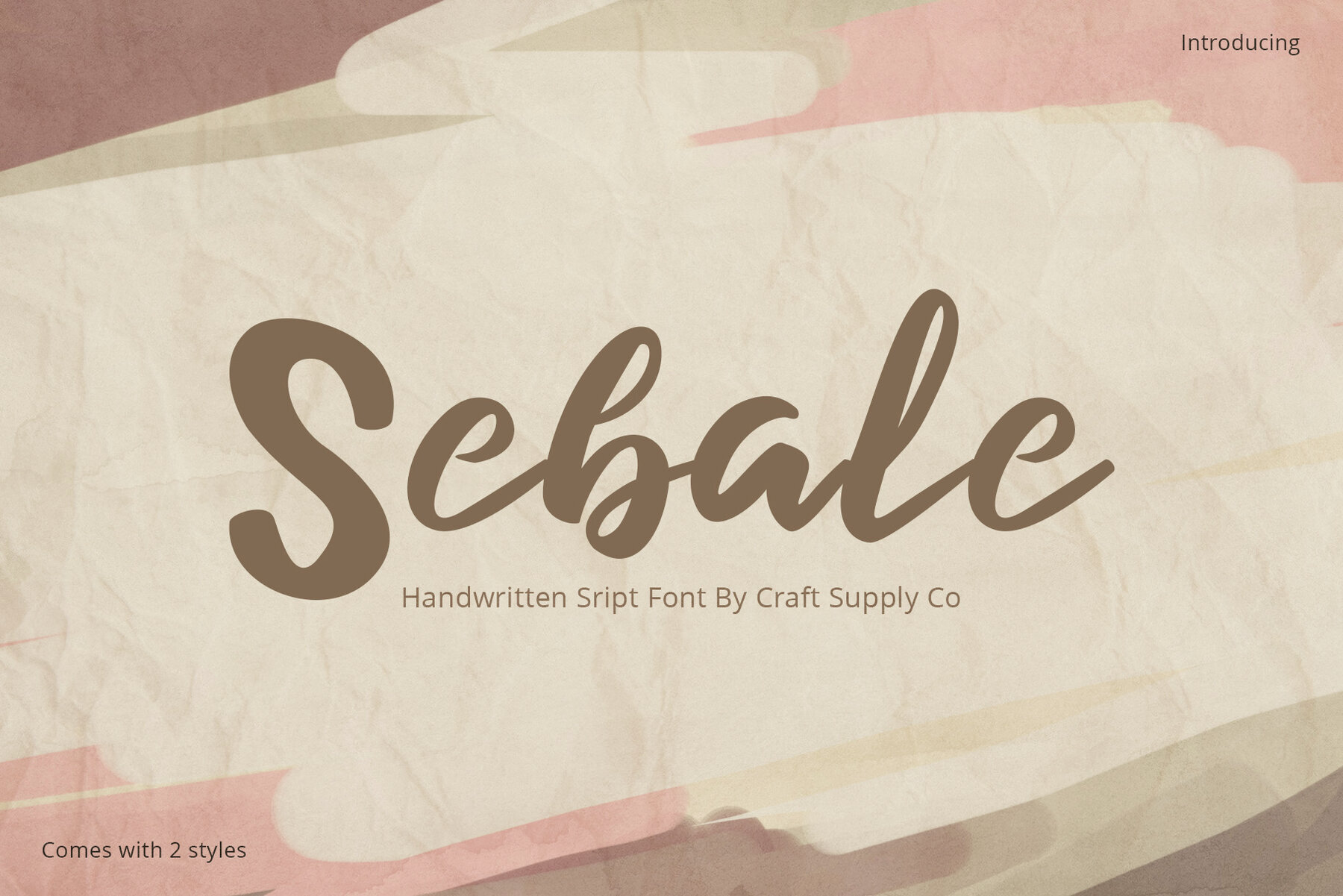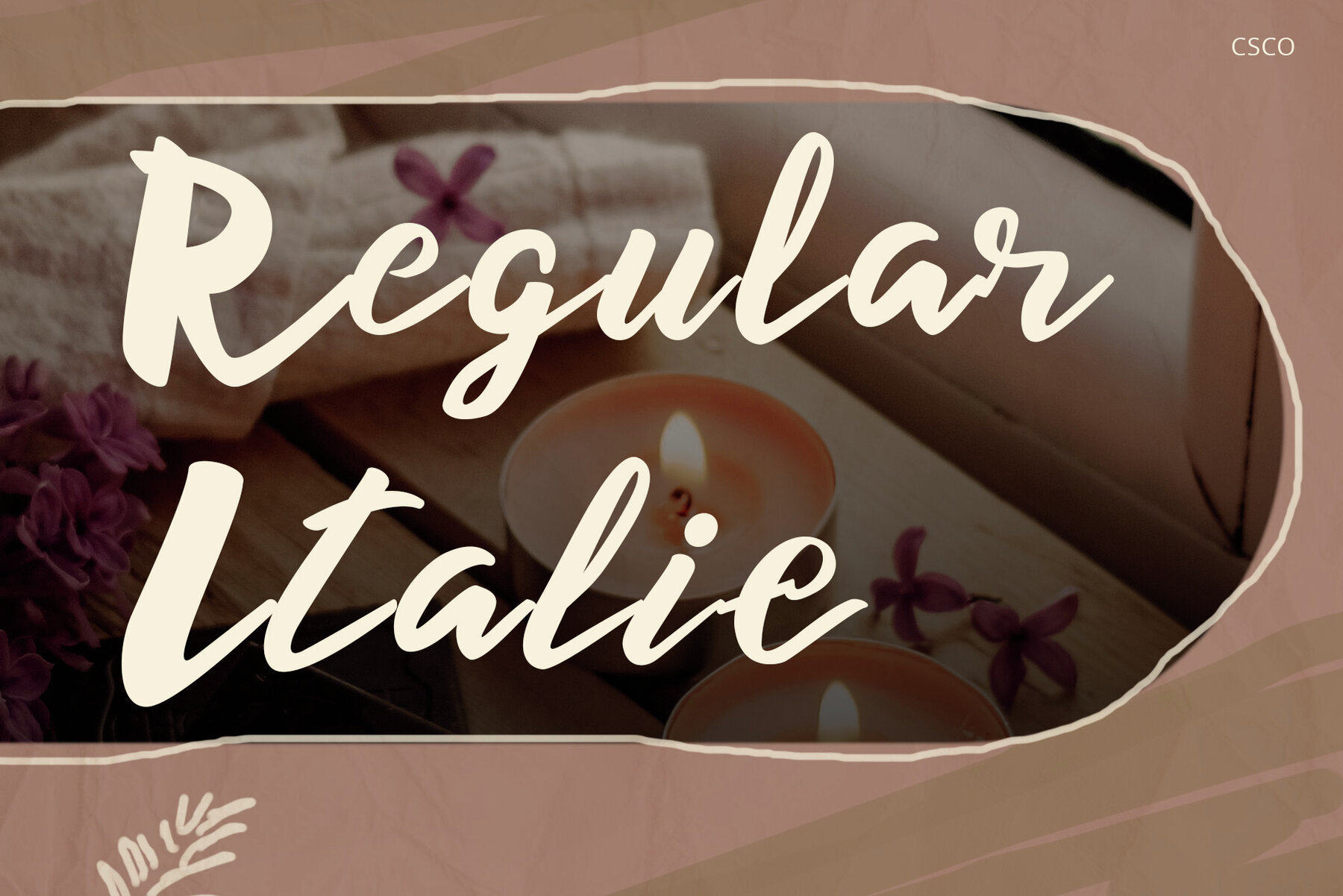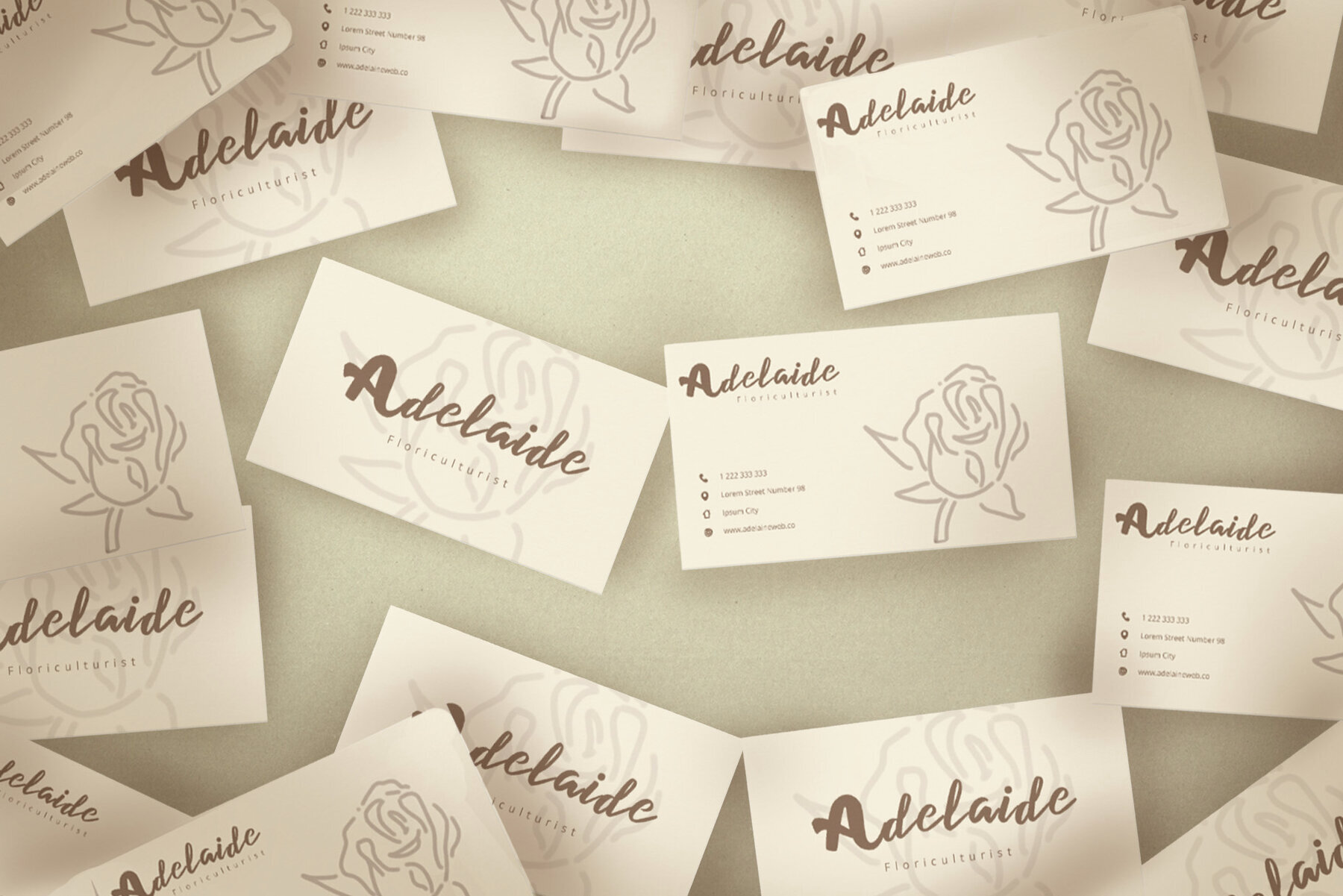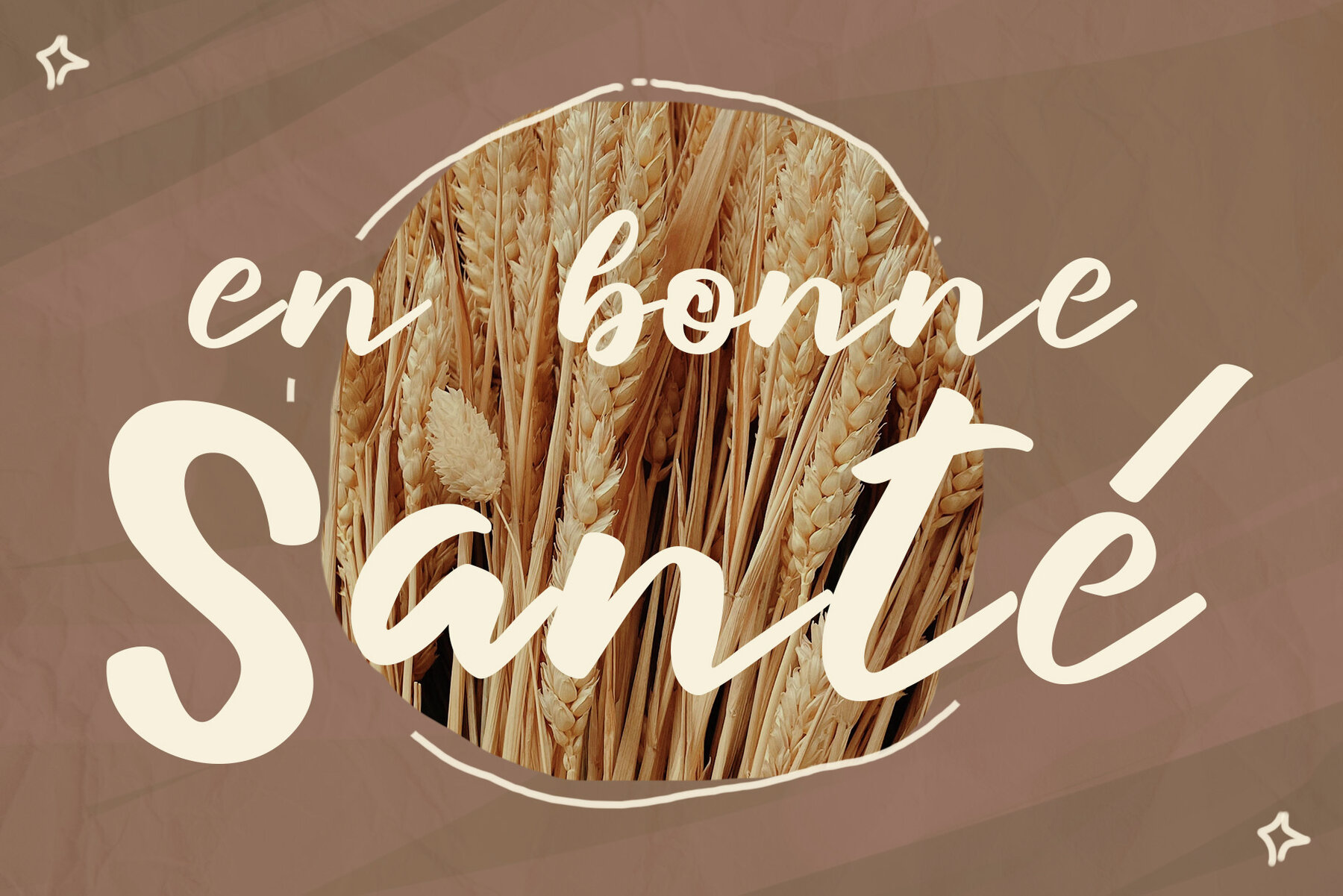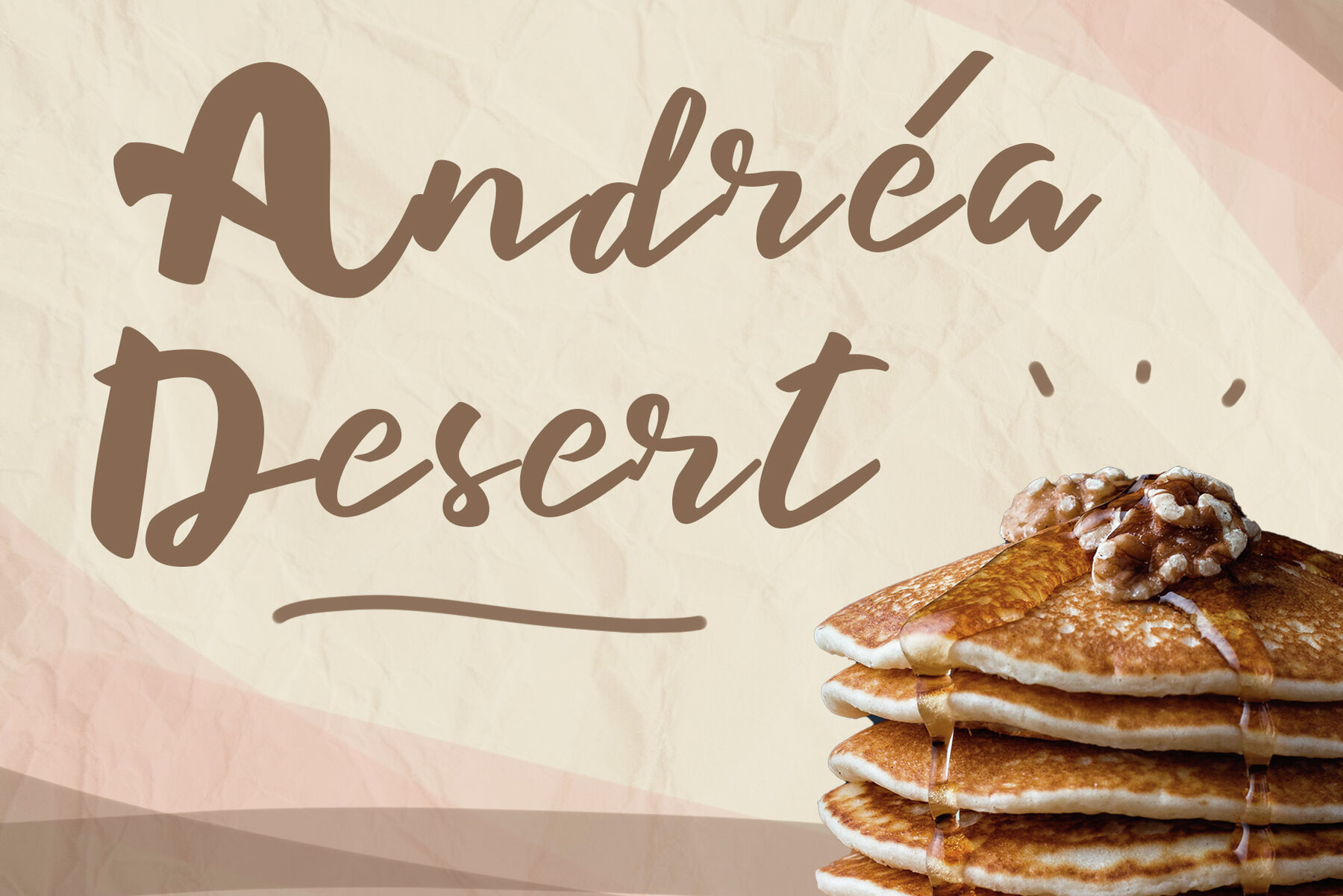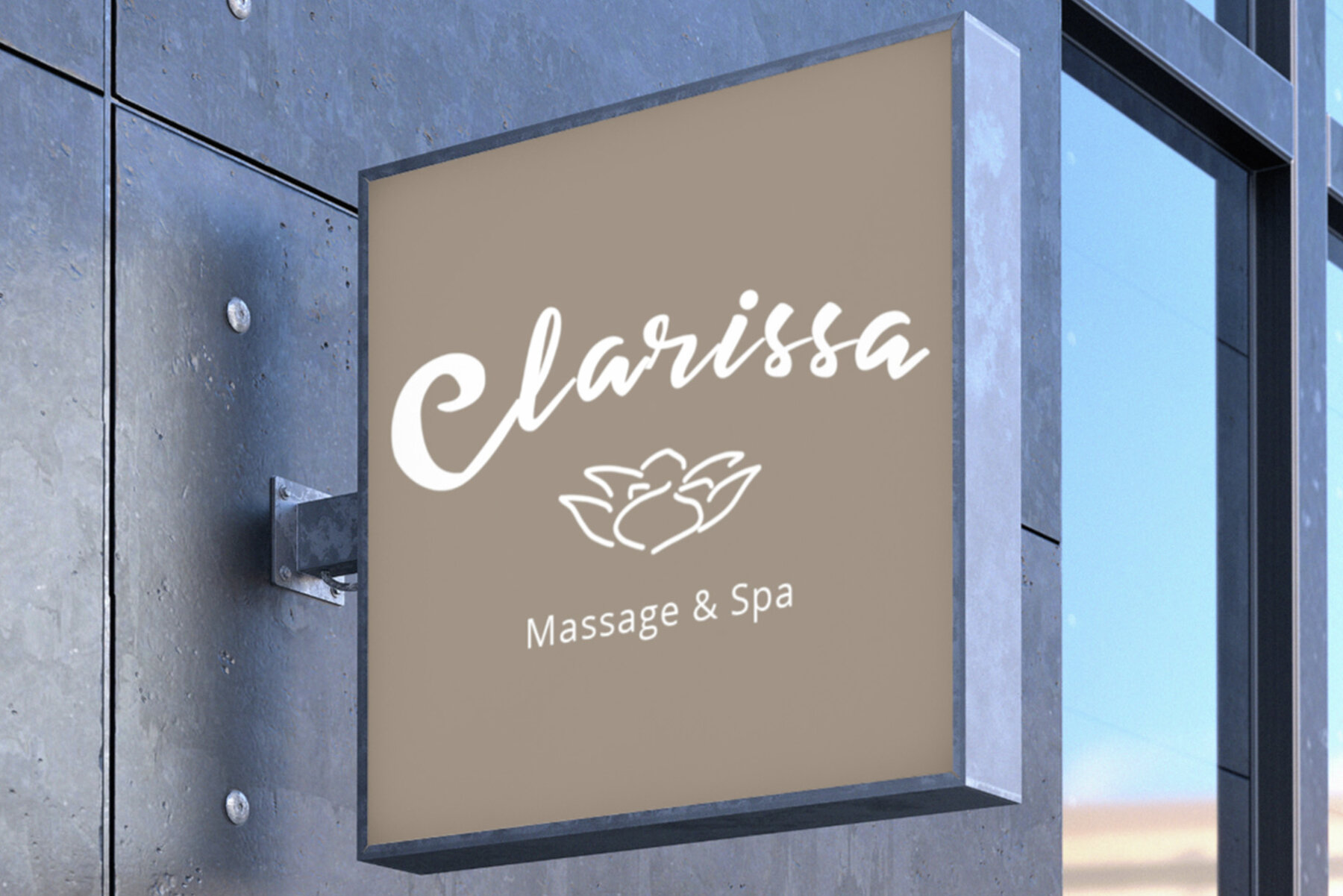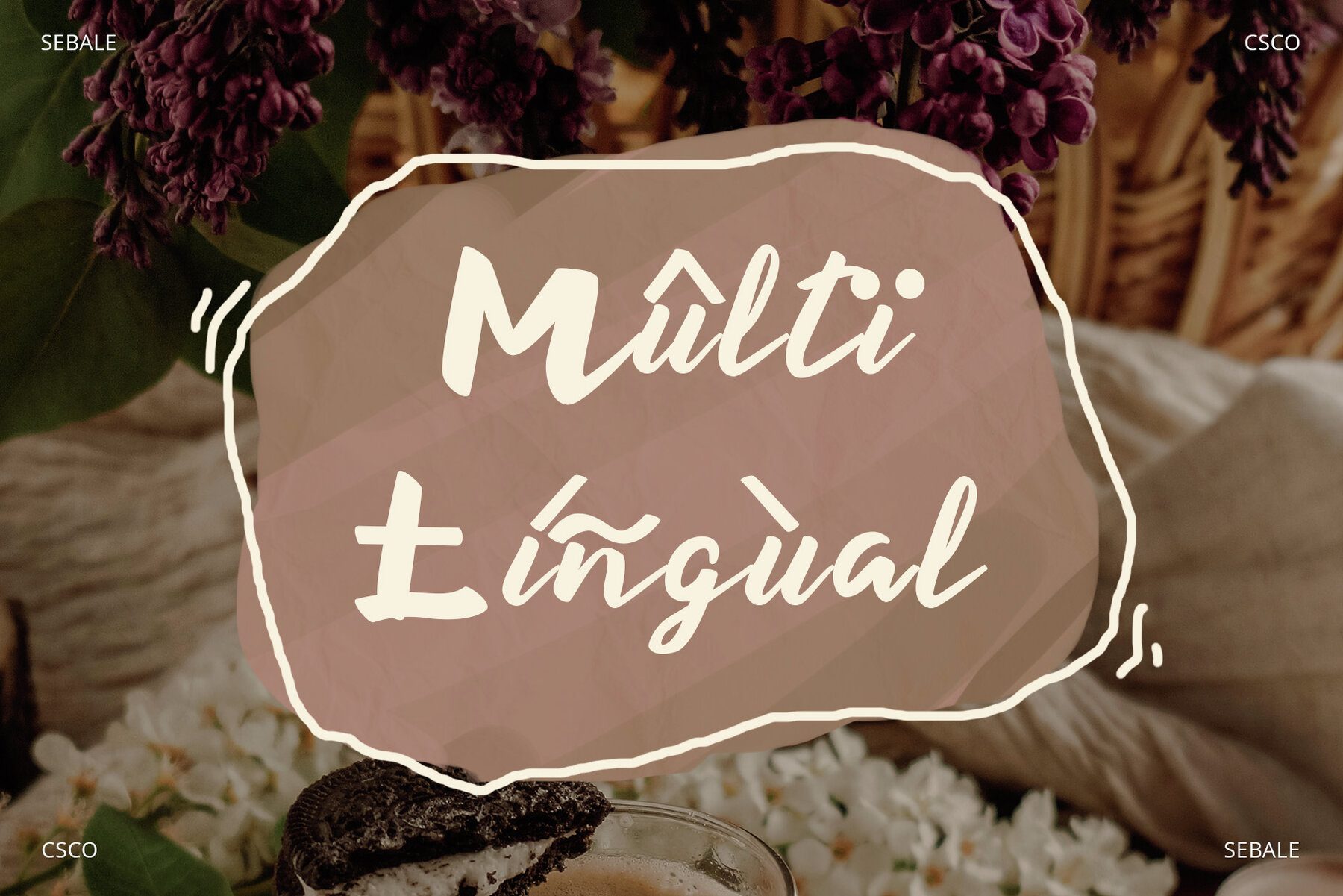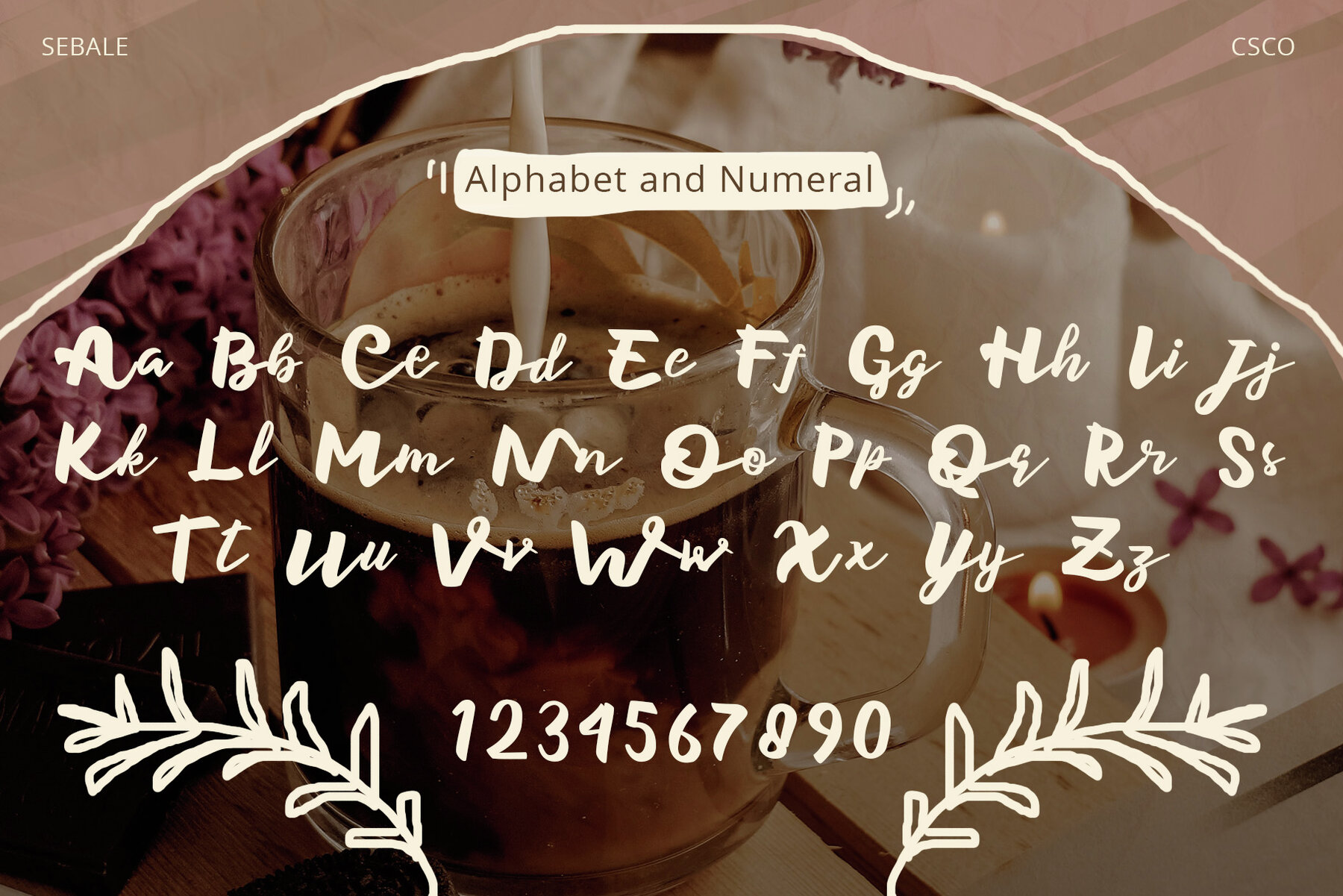
Sebale Font
Sebale is a font brimming with delightful whimsy, perfect for adding a playful touch to your designs. Sebale's handwritten style exudes a charming whimsy, making it an ideal choice for a variety of creative projects. Beyond its charm, Sebale's versatility shines through, enhancing a wide range of design projects. From greeting cards to branding, it offers endless possibilities.Sebale: Playful Handwritten Script
Charming Whimsy
Versatile for Creative Endeavors